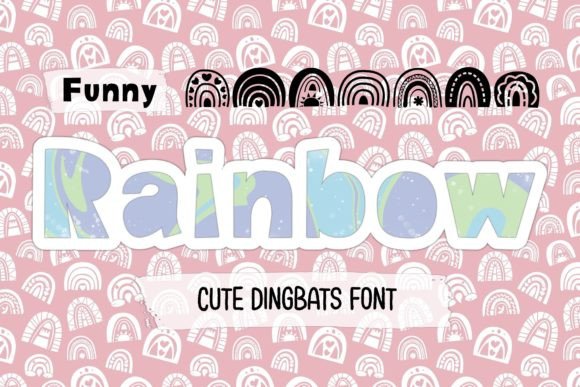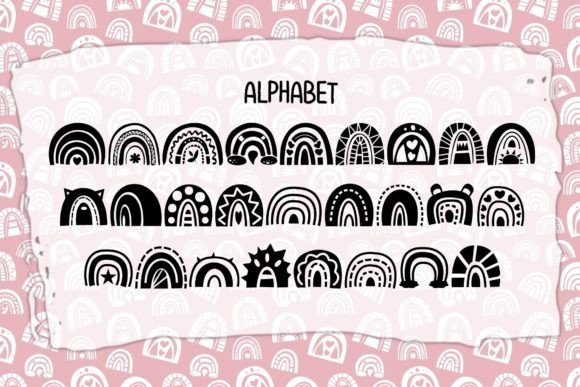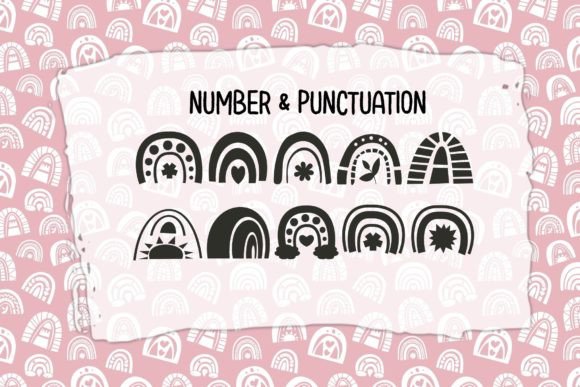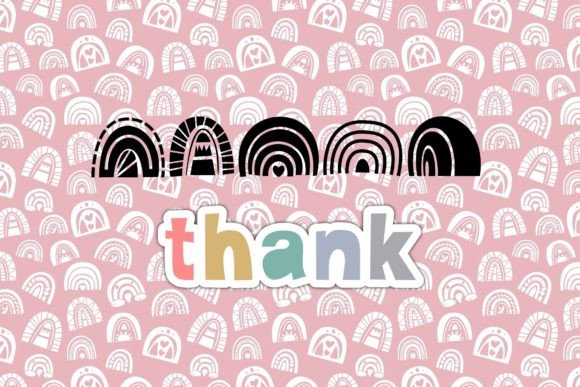
Funny Rainbow Font
About Funny Rainbow Font
Introducing Funny Rainbow, the delightful and playful dingbats font that will bring a burst of color and joy to your creative projects. This font is designed to add a touch of whimsy and fun to your designs, making them stand out and put a smile on people’s faces.
With Funny Rainbow, you have a collection of cute and funny rainbow icons at your disposal. These colorful characters can be used in various applications, including logos, wall art, signs, cards, art prints, t-shirts, coloring pages, and more. Let your imagination run wild and create designs that are vibrant, cheerful, and full of personality.
When it comes to logos, Funny Rainbow will help you create a memorable and eye-catching brand identity. The colorful rainbow icons can be incorporated into your logo design, instantly capturing attention and conveying a sense of positivity and playfulness. Whether you’re designing for a children’s brand, a creative business, or any other venture that aims to spread joy, Funny Rainbow is the perfect choice.
Wall art and signs also benefit from the lively nature of Funny Rainbow. Use the rainbow icons to create vibrant and captivating art pieces that will brighten up any space. Whether you’re decorating a nursery, a classroom, or a cheerful corner in your home, Funny Rainbow will add a touch of whimsy and create a welcoming and joyful atmosphere.
Cards and art prints are another great avenue to showcase the charm of Funny Rainbow. Whether you’re designing greeting cards, invitations, or art prints, incorporating these colorful rainbow icons will instantly uplift your designs and make them more appealing. The playful and cheerful nature of Funny Rainbow will bring a sense of happiness and positivity to your creations.
If you’re in the apparel industry, Funny Rainbow can be a fantastic addition to your t-shirt designs. Create eye-catching and vibrant designs that feature the cute rainbow icons. Whether you’re designing for a pride event, a children’s line, or simply want to add some color and fun to your clothing, Funny Rainbow will deliver the desired effect.
Furthermore, Funny Rainbow is perfect for coloring pages. Create intricate and enjoyable coloring designs that feature these cheerful rainbow characters. Whether you’re designing coloring books or printable pages, Funny Rainbow will bring a burst of color and happiness to the coloring experience, making it enjoyable for both kids and adults.
Get ready to infuse your designs with the cheerful and whimsical spirit of Funny Rainbow. Whether you’re working on logos, wall art, signs, cards, art prints, t-shirts, coloring pages, or any other creative project, this font will add a vibrant and joyful touch. Let the colorful rainbow icons captivate your audience and spread happiness through your designs.